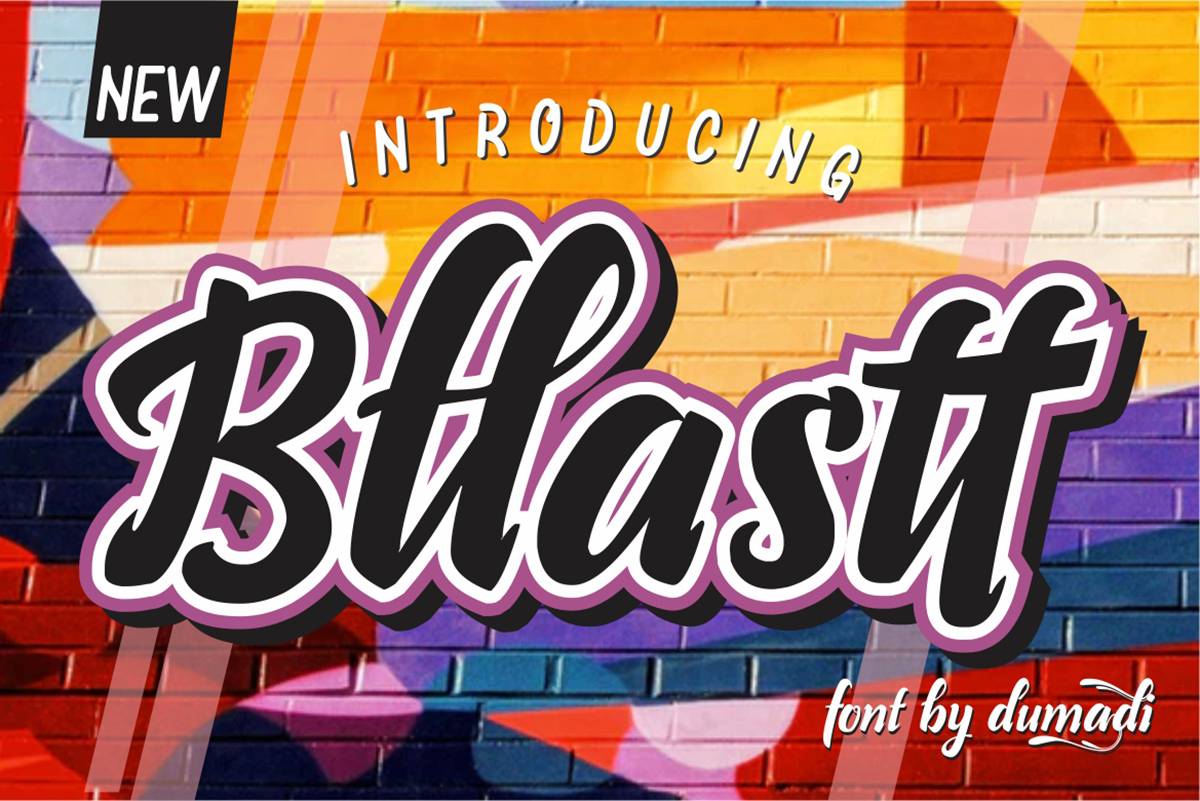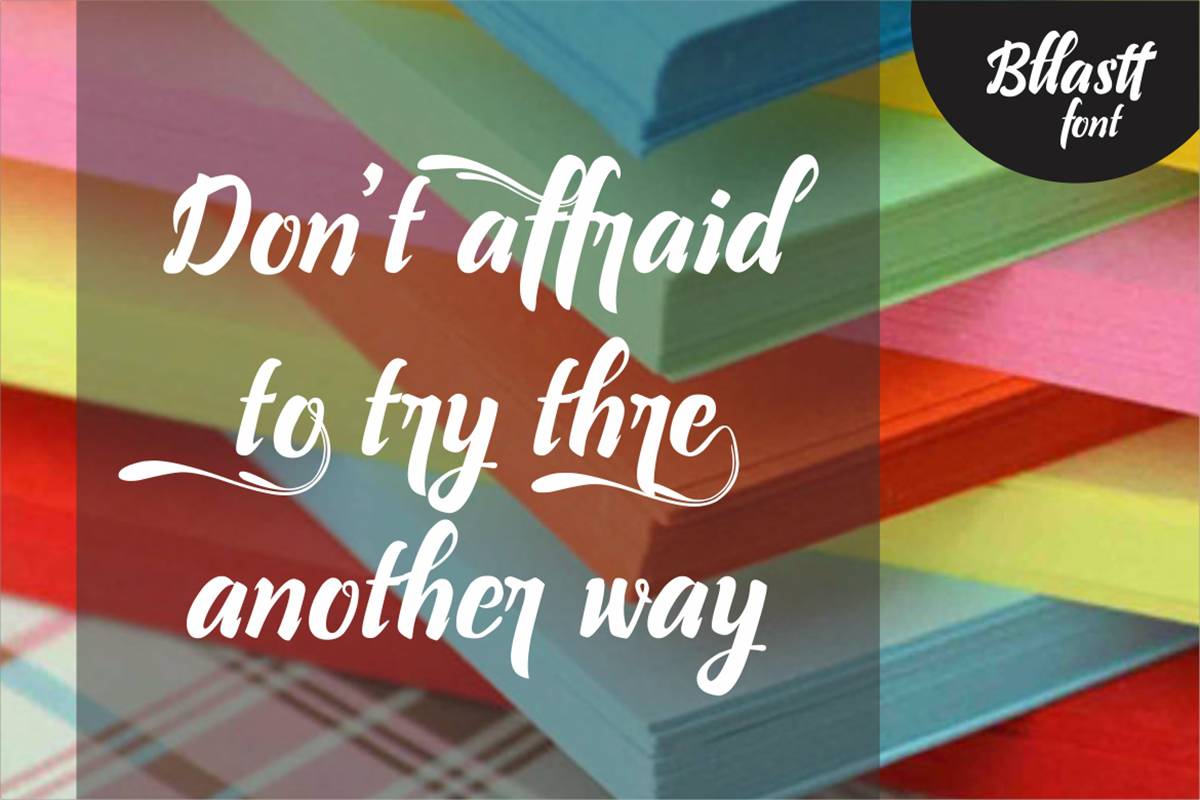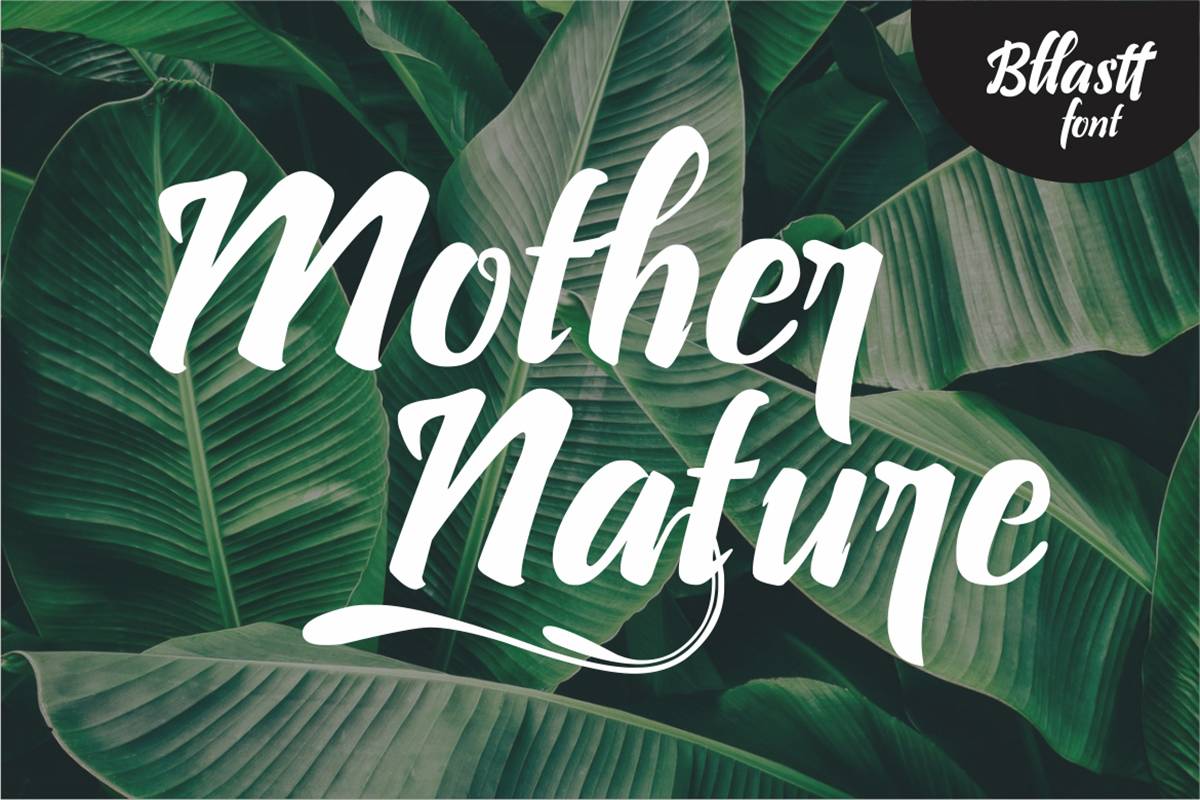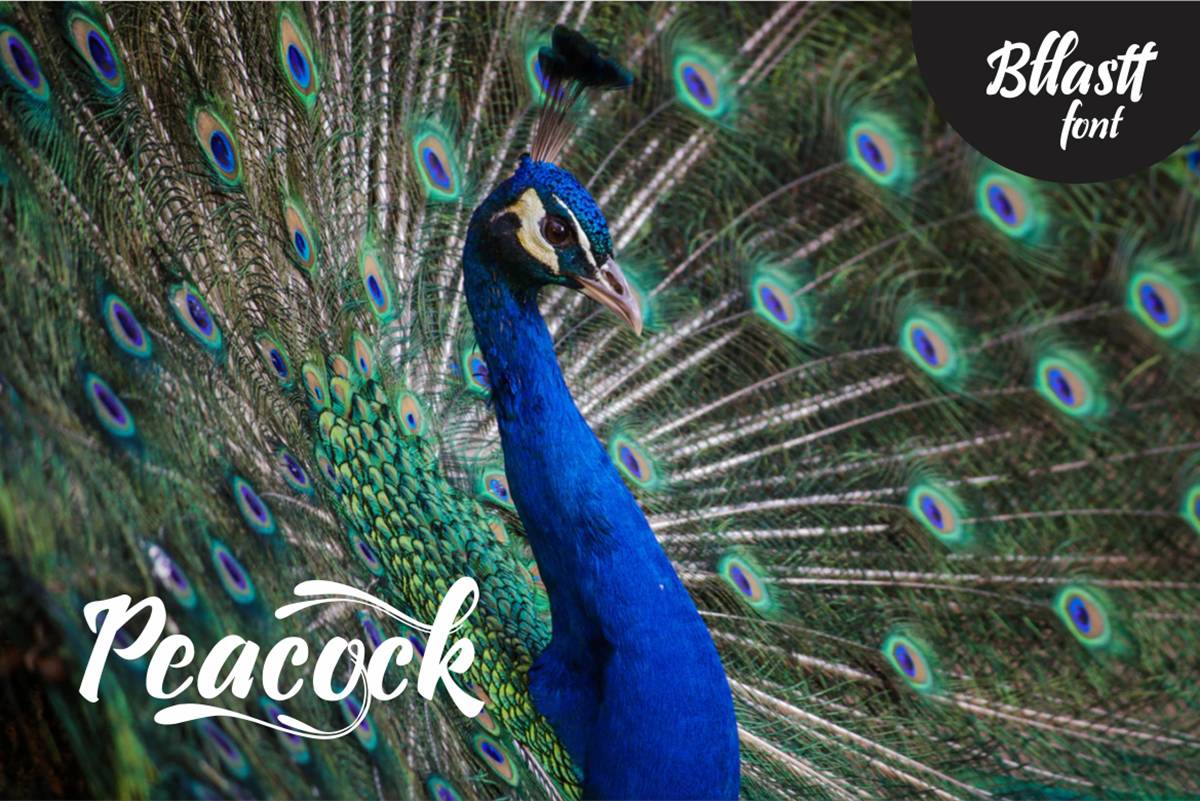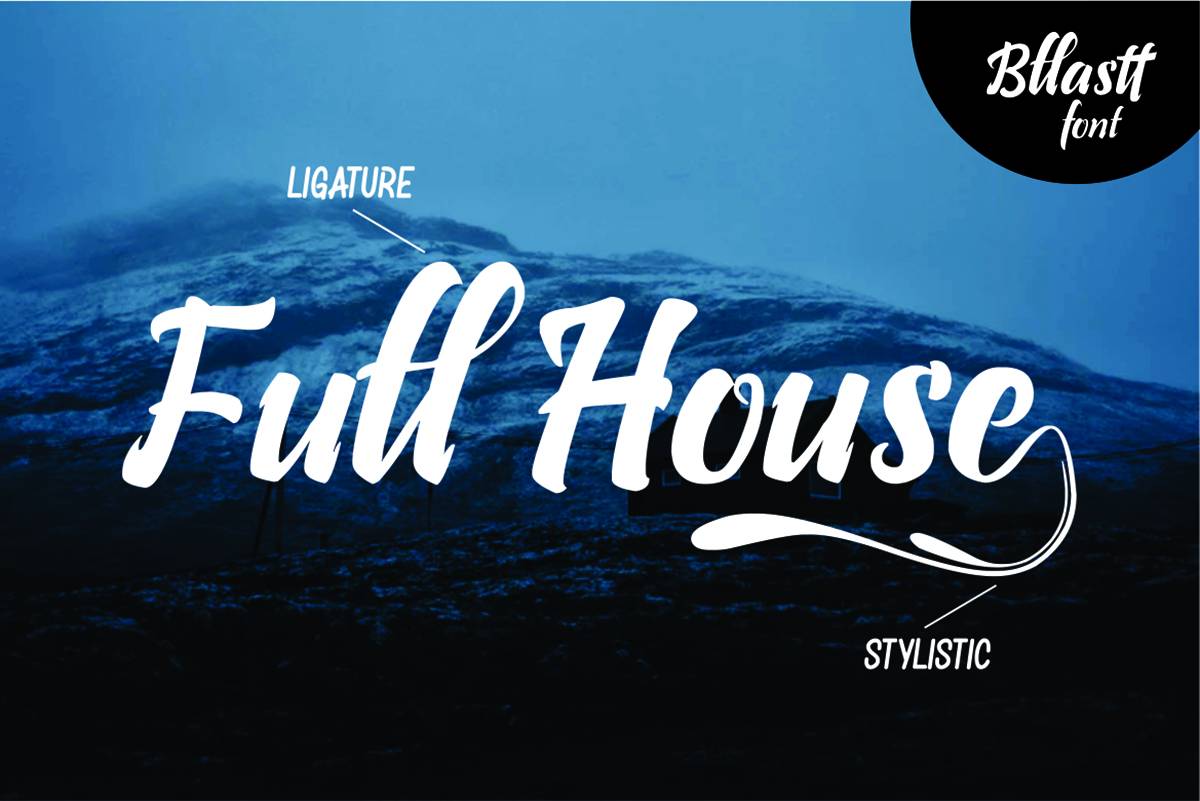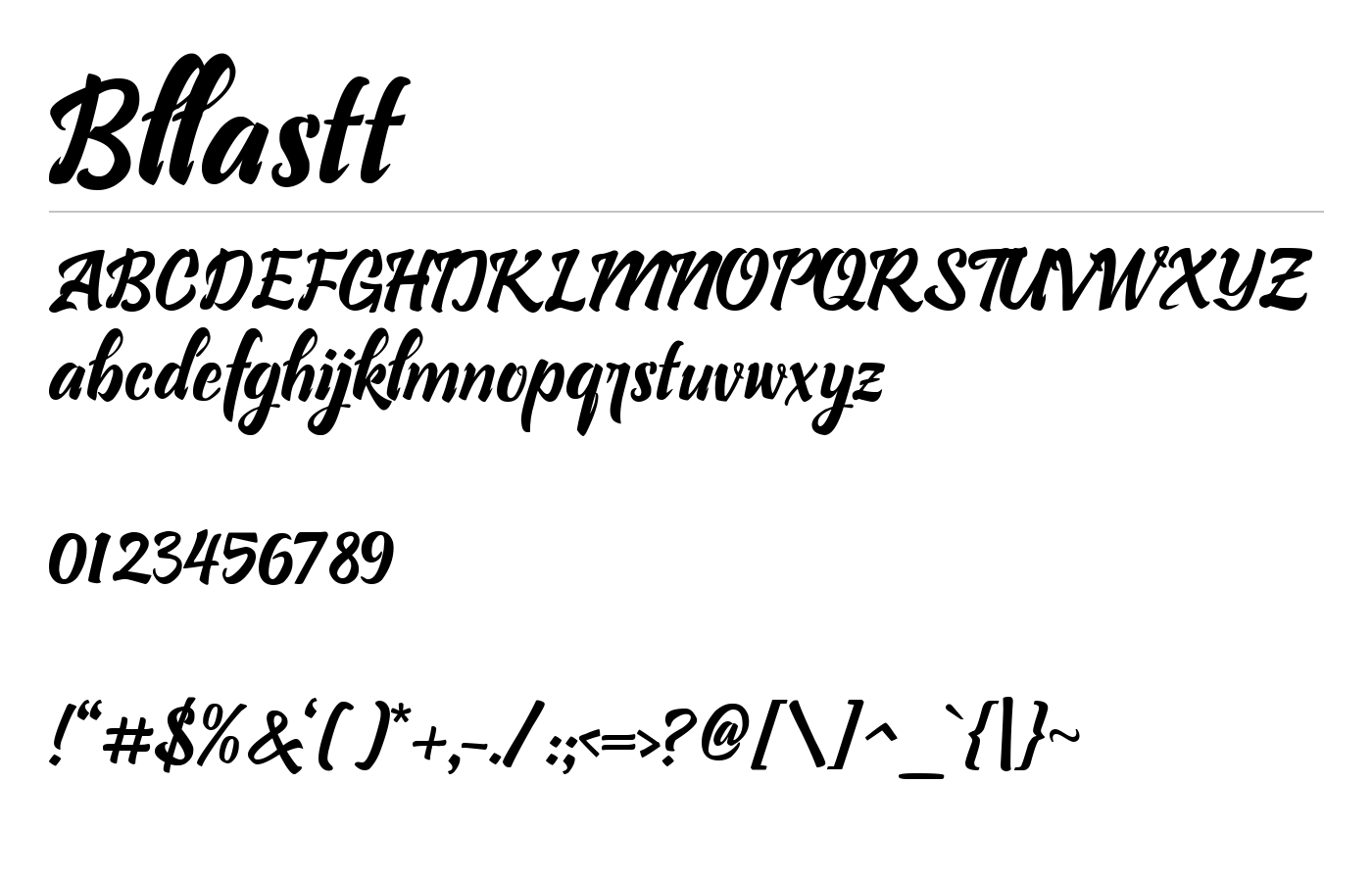
Bllastt is a bold, script-style font with smooth, flowing curves that blend classic calligraphy with a modern twist. Its moderate contrast and organic stroke style create an elegant yet dynamic feel, making it perfect for stylish branding, invitations, and expressive headlines. This font’s lively personality adds a touch of sophistication and creativity to any design.
Bllastt Font
About Bllastt Font
| Font family | Bllastt Font |
| Release date | 2019-08-16 |
| Designer | dumadi2019 |